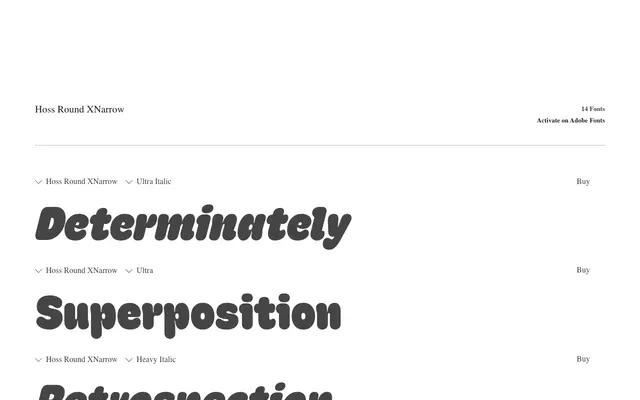
Hoss Round XNarrow
An extra-narrow grotesque with subtle horizontal stroke contrast and rounded terminals, available in seven weights with matching italics.
Hoss Round XNarrow sits in an underexplored corner of the grotesque genre, combining a gentle reverse or horizontal contrast with softened terminals and stroke endings. The result reads as playful without losing the structural rigour needed for identity and packaging work. Fourteen styles span Light to Ultra across the XNarrow width, all with italic companions, and the family is part of a broader Hoss range covering additional weights and widths with wide language support.
Described explicitly as a grotesk, with horizontal stroke contrast (reverse contrast) and rounded terminals — a variant treatment within the grotesque genre rather than a departure from it.